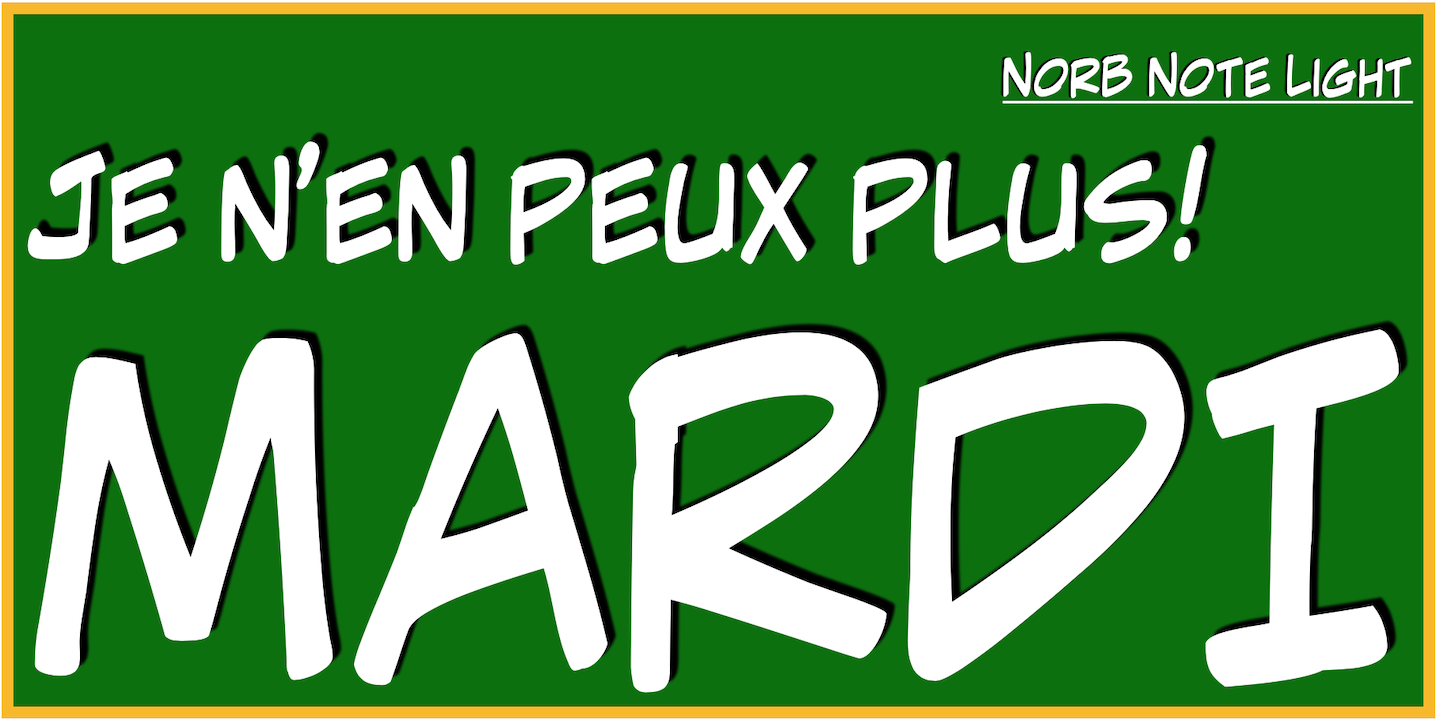
NorB Note Font is perfect for personal journals, handwritten note designs, informal communications, casual branding, organic food packaging, artisan craft labels, personal stationery, relaxed café menus, and any project requiring typography with authentic handwritten charm and approachable casual elegance.
What makes NorB Note Font exciting is its authentic spontaneity that captures the natural flow and personal character of genuine handwritten notes with letterforms that feel casually crafted yet deliberately refined. This charming typeface embodies the intimate warmth of personal correspondence with organic variations that reflect the human touch and authentic personality found in handwritten communication. The font's casual character and handwritten sophistication make it perfect for brands that want to establish genuine connections, personal authenticity, and the approachable warmth of human-centered design.
The NorB Note Font family includes regular weight with complete uppercase and lowercase alphabets, numerals, punctuation marks, and handwritten design elements. The font maintains consistent casual elegance throughout all letterforms while ensuring excellent readability for both personal headlines and intimate text applications in casual and artisan contexts.
Whether you're designing for artisan food brands, creating personal stationery products, or developing casual branding with handwritten aesthetics, NorB Note Font Free Download brings unmatched authentic charm and personal sophistication to your projects. This delightful typeface transforms ordinary text into warm expressions of human connection that celebrate personality, authenticity, and the timeless appeal of handwritten communication. The font's casual character makes it ideal for organic brands, personal services, and human-centered businesses. Download this exceptional font today and bring the genuine warmth of handwritten authenticity to your design projects with natural casual elegance and note-taking charm.